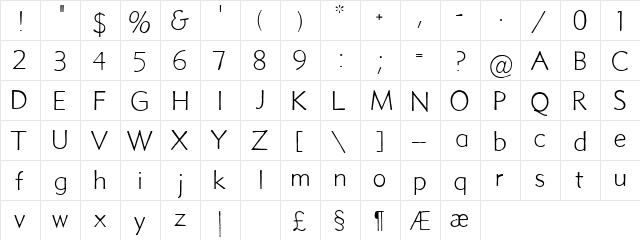
Metro Thin HPLHS
Metro Thin offers clean, dependable letterforms without strong stylistic allegiance, making it a practical choice for designers who need flexibility. The delicate stroke weight brings airiness and refinement to layouts.